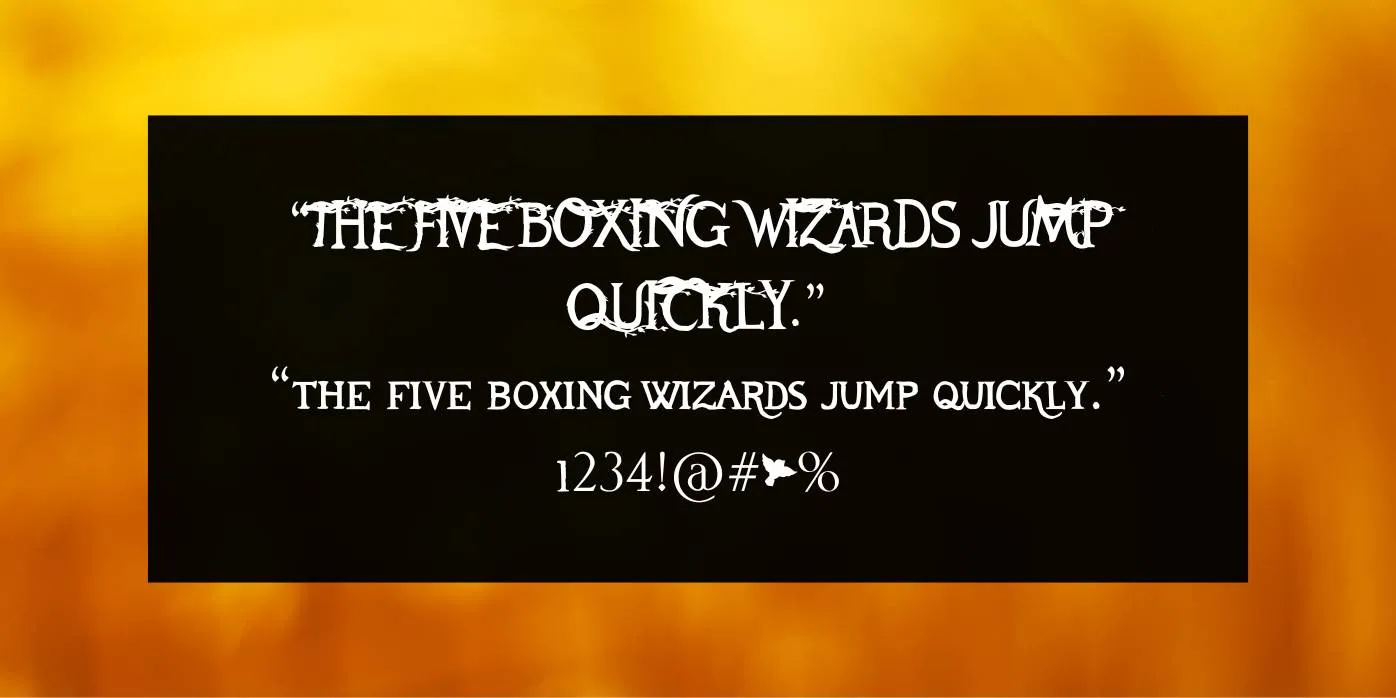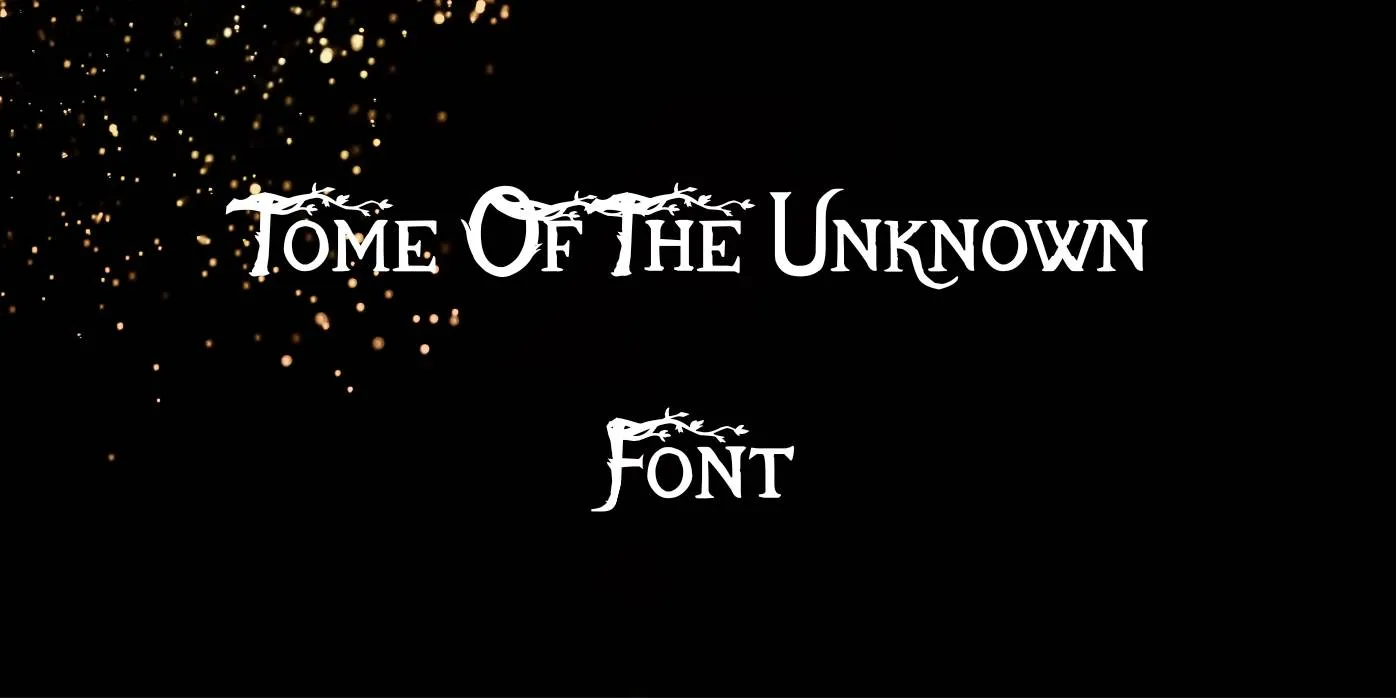
Tome of the Unknown Font
The Tome of the Unknown Font was based on a short animated movie. This wonderful texture was designed by a famous typographic developer known as the named Mawhrt. It has elegant characters of alphabet set and belongs to the fancy texture family.  You can make so many different projects using this font commercial or personal but for a commercial, you need to buy its license from the owner. It contains 236 characters, 153 glyphs, and 2048 units per Em.
The pattern nature for this typeface is regular and its pitch is not monospaced. An online generator tool supports this font to change simple text into a stylish look online without downloading the font.  Embedding rights are allowed for editing only. The weight of the font is Semi-Bold and its width is medium normal. This wonderful texture supports two file formats TTF and OTF.